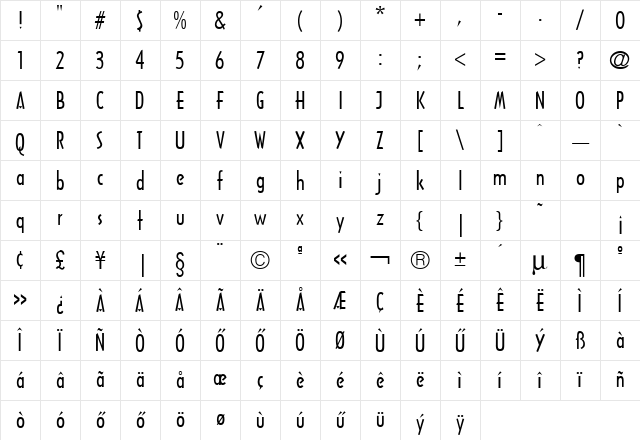
Complete Architecture HU Plain glyph index. Displaying only characters natively supported by Architecture HU Plain font.
Architecture HU is a composed and adaptable typeface that performs quietly and consistently across a wide range of design contexts.